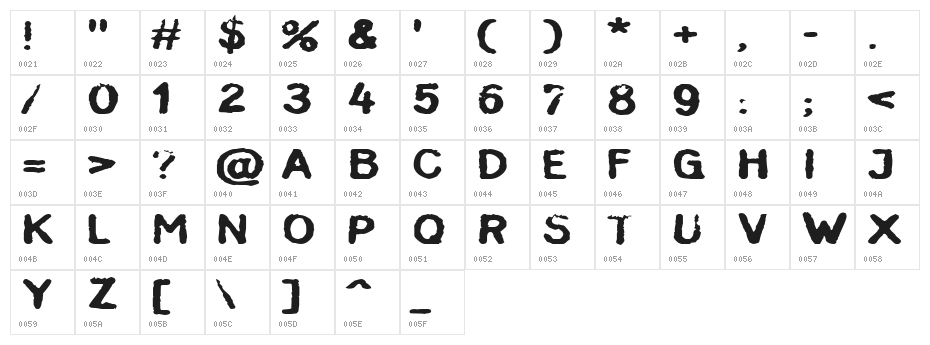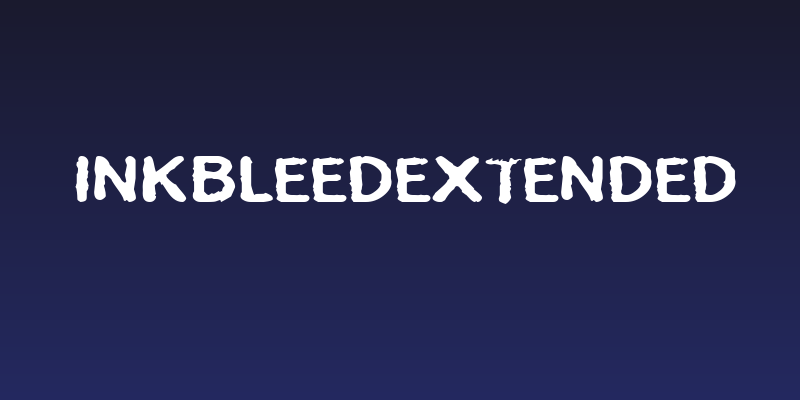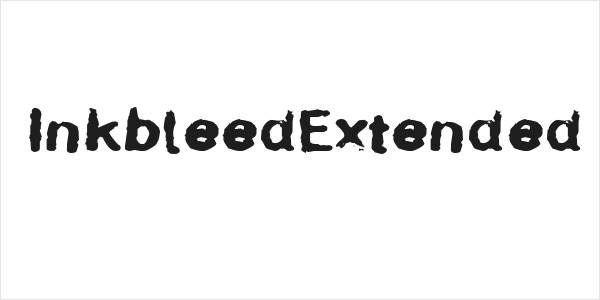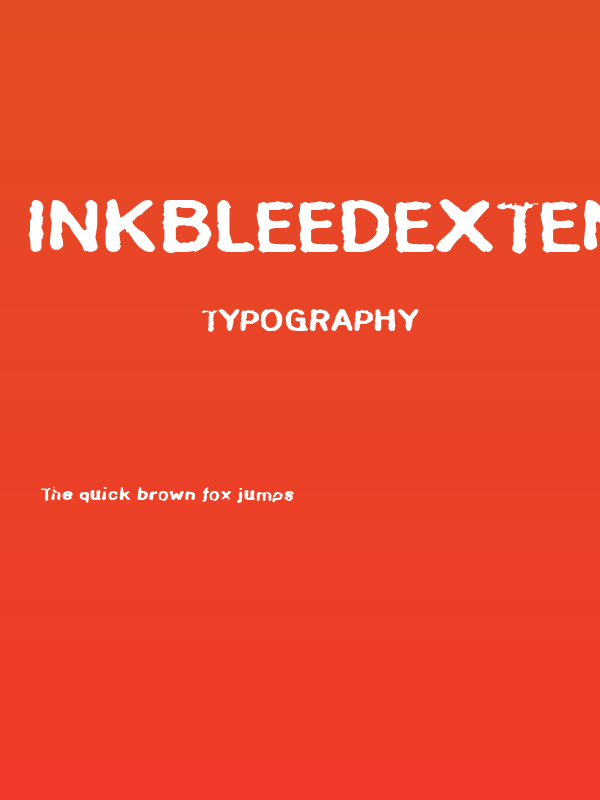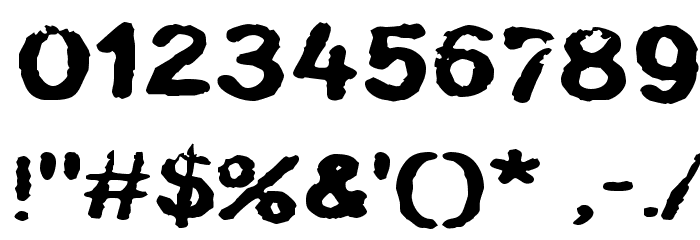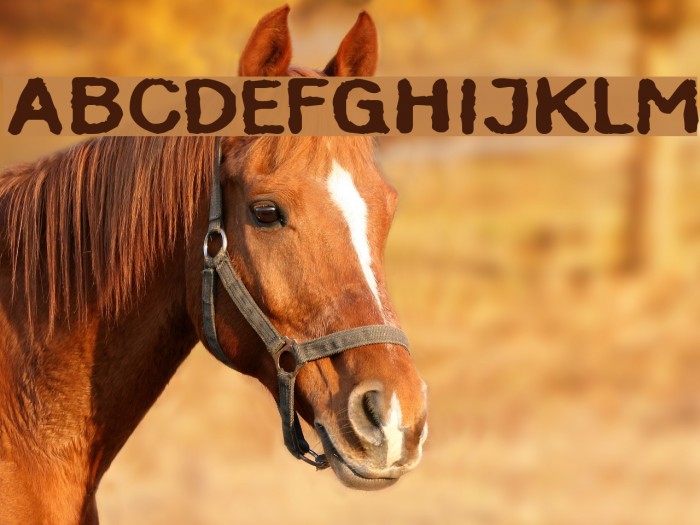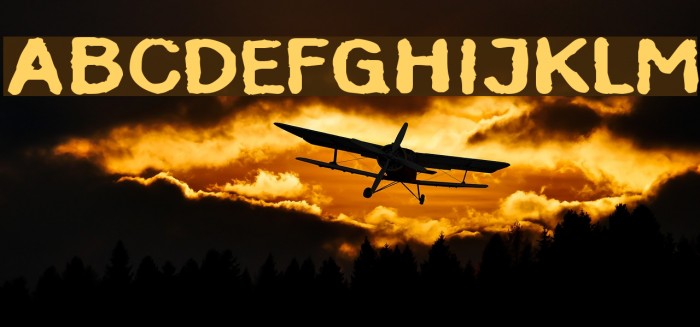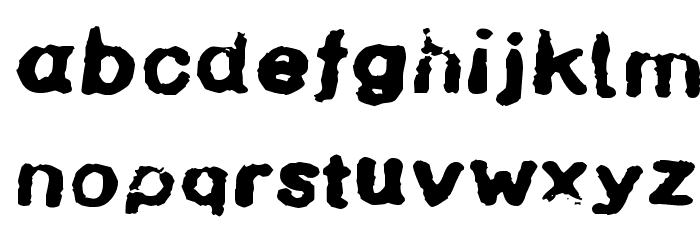
InkbleedExtended Font
InkbleedExtended Description
This font exhibits a unique, distressed style that mimics the appearance of ink bleeding on paper. The characters are bold and have an irregular, organic texture, giving them a handcrafted feel. The uppercase and lowercase letters maintain a consistent weight, with rounded edges and a slightly uneven baseline, enhancing the font's rustic charm. The numerals and special characters follow the same aesthetic, ensuring a cohesive look across all text elements. This font's distinctive appearance makes it ideal for projects that require a touch of authenticity and artistic flair.